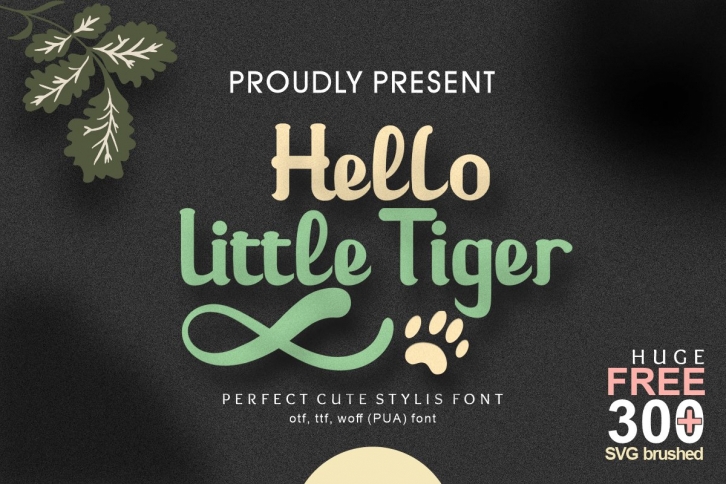
Hello Little Tiger FONT Download
Hello Little Tiger Font Download
Hello Little Tiger is a gorgeous font that was realeased on August 14, 2020. The font can be used in many style contexts and design environments. Perfect for invitations, magazines, websites, logos, and more! It was designed by Prast Art and the file size is 1.1 MB. Thanks for checking out this font!